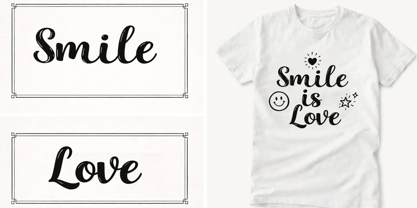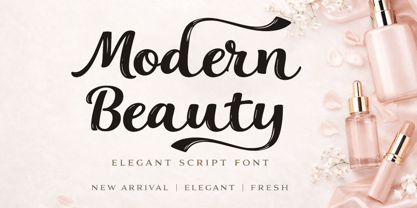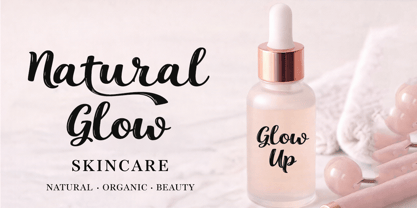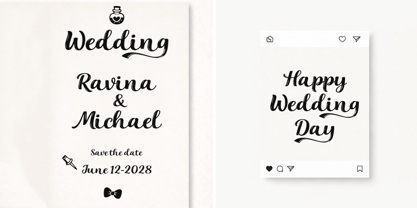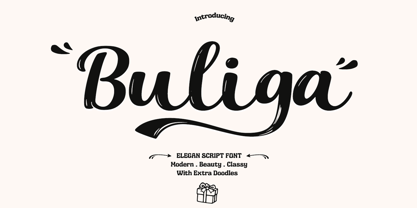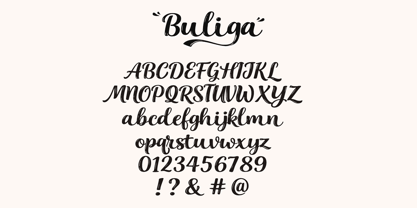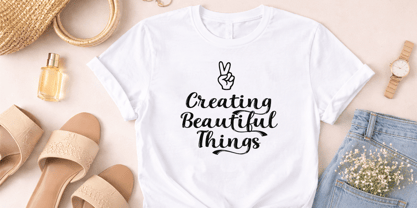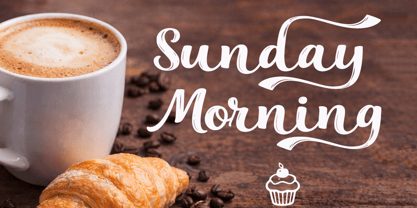
Buliga
by Cocodesign
The Buliga Font Family was designed by Muhammad Zaini and published by Cocodesign. Buliga contains 2 styles and family package options.
Buliga is an elegant script font with a modern and classy touch, featuring smooth curves and balanced thick–thin strokes that create a bold yet refined look. Its natural flow and decorative swashes, combined with extra doodle elements, add character and visual charm to any design. Perfect for branding, logos, posters, packaging, apparel, wedding invitations, social media, and typography projects, Buliga delivers a stylish, playful, and premium appearance suitable for both digital and print use.